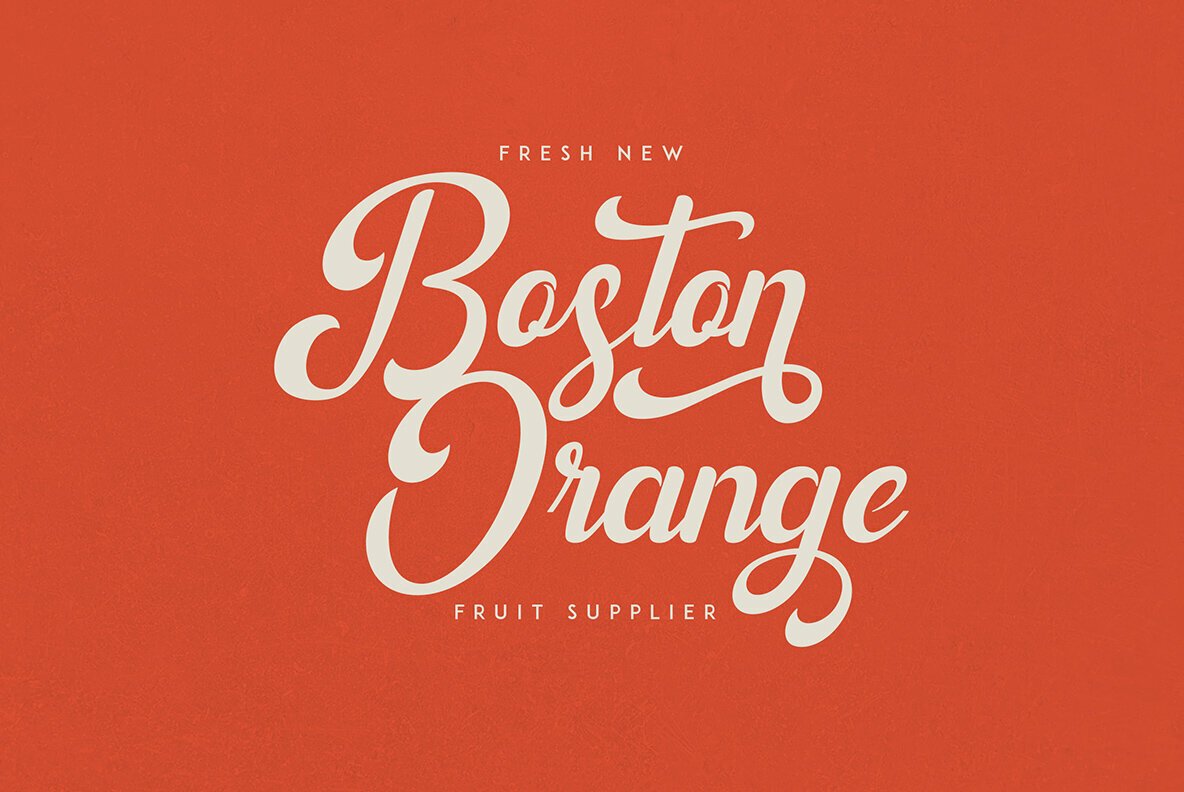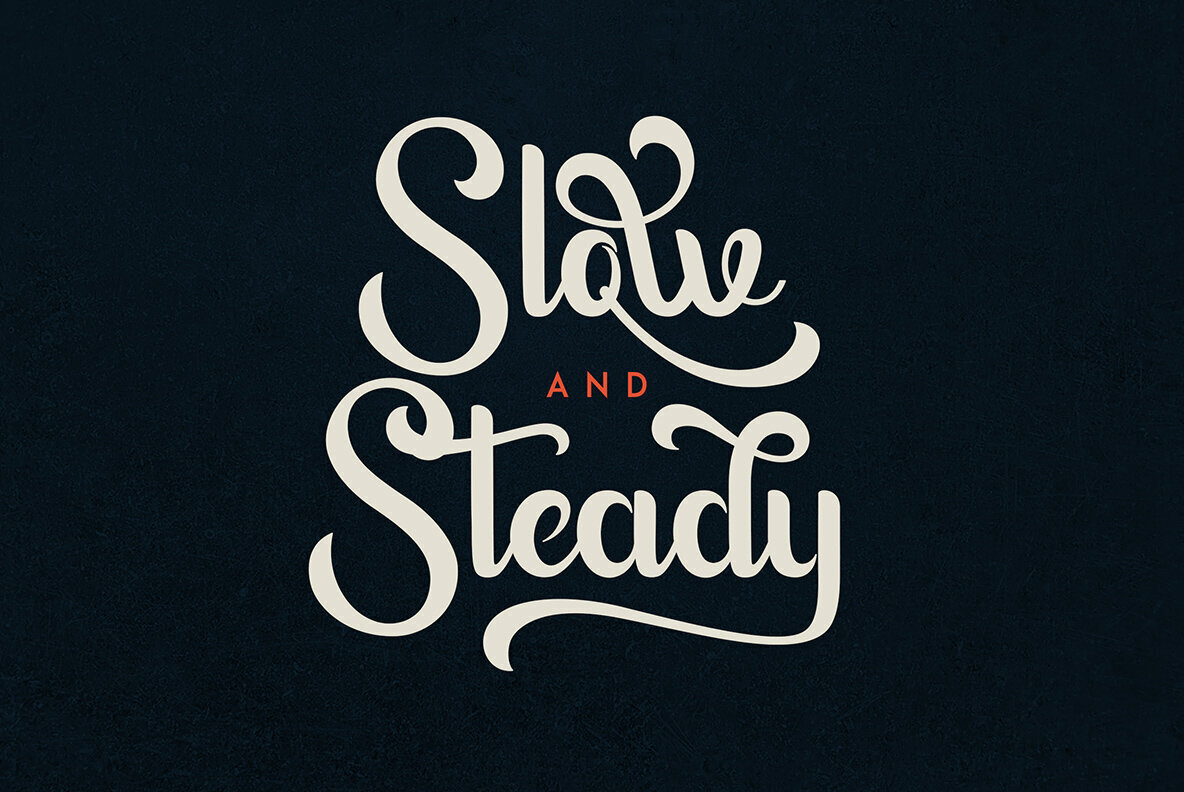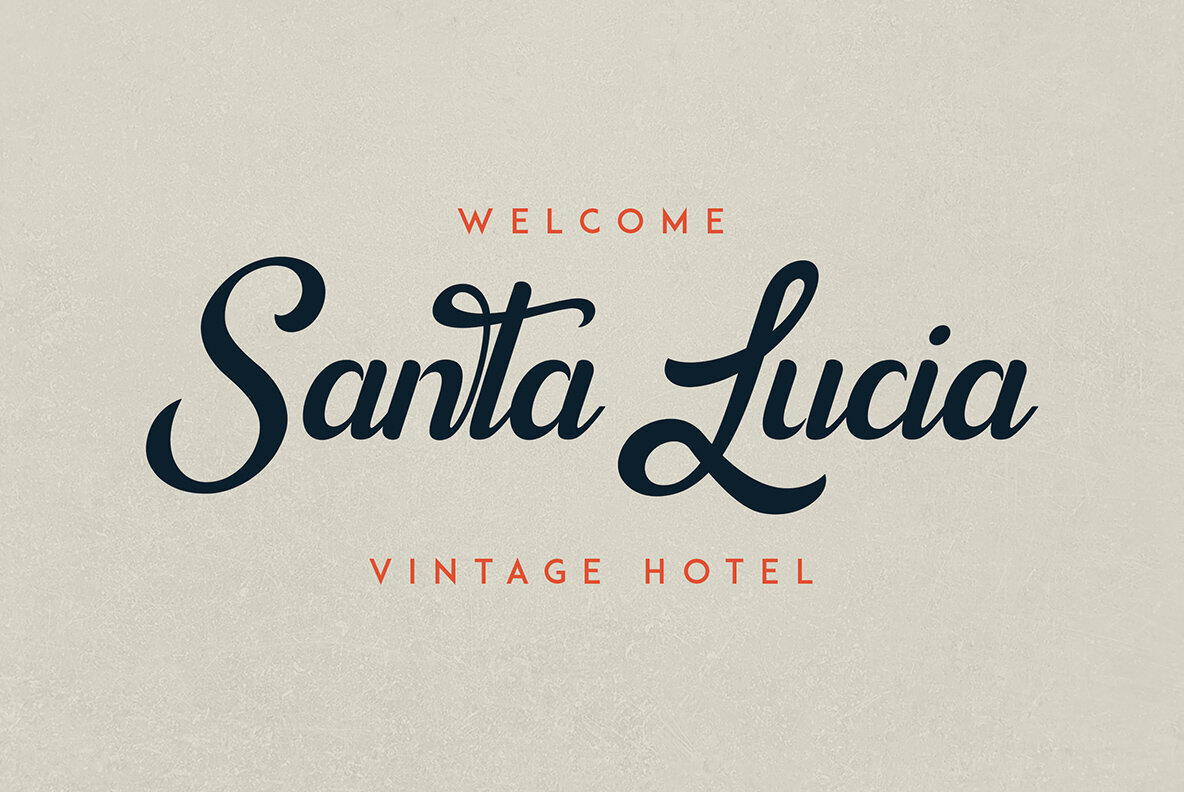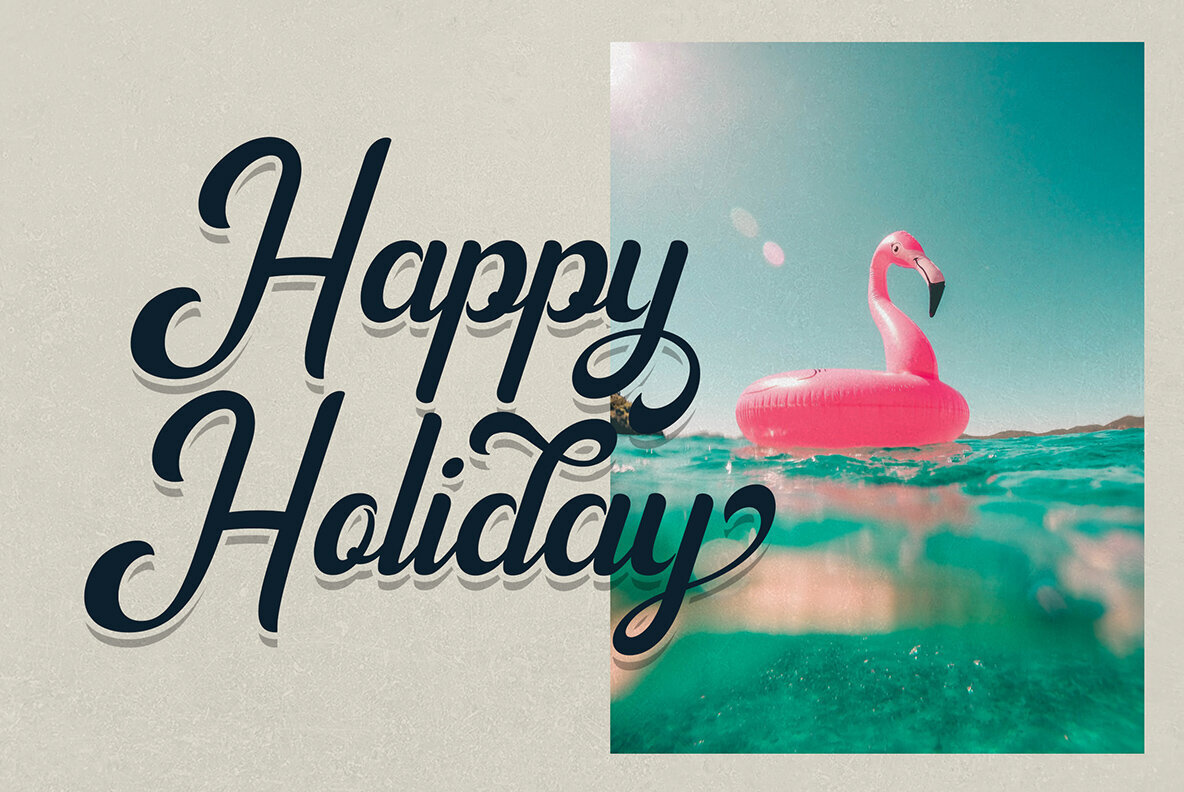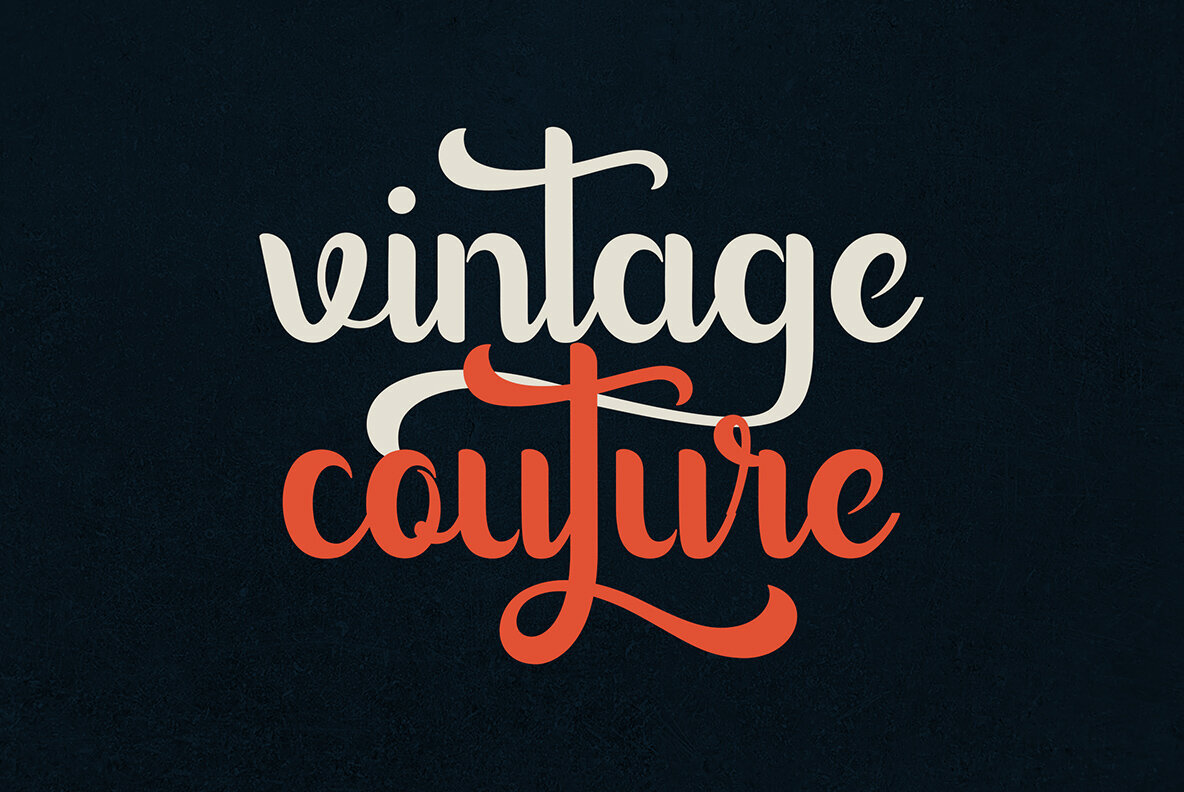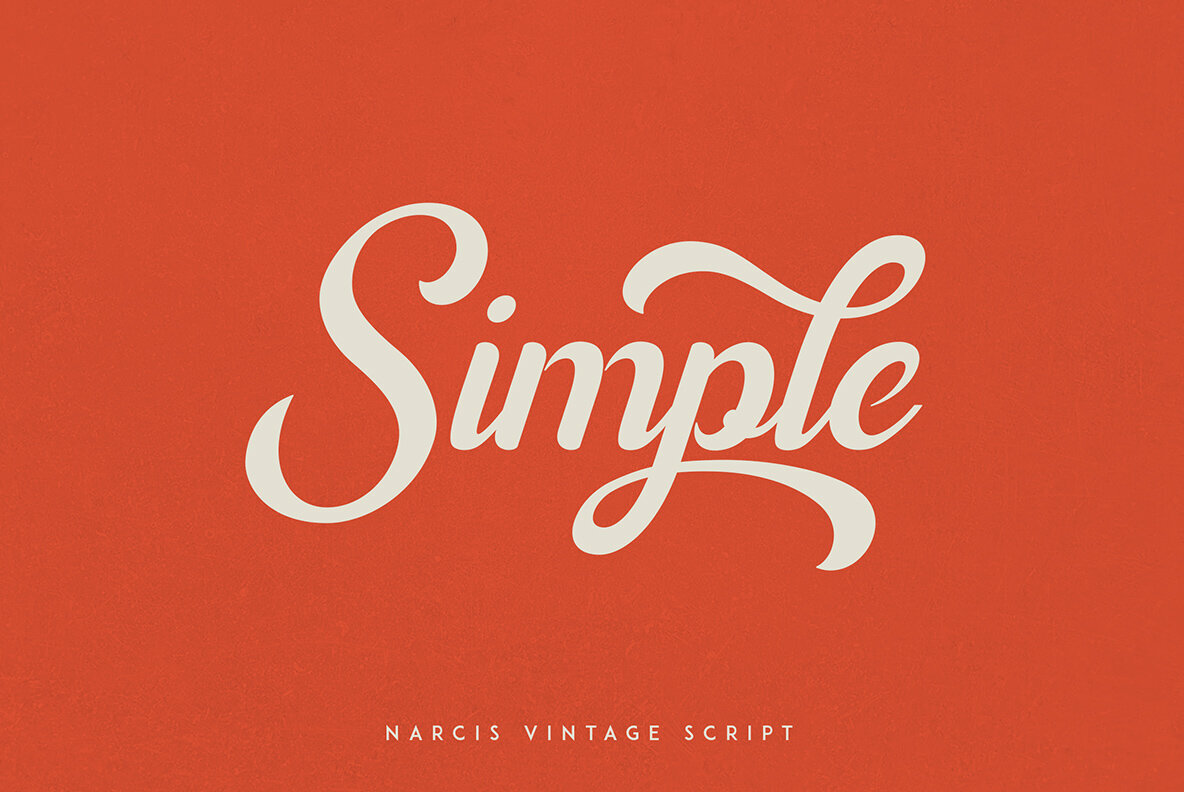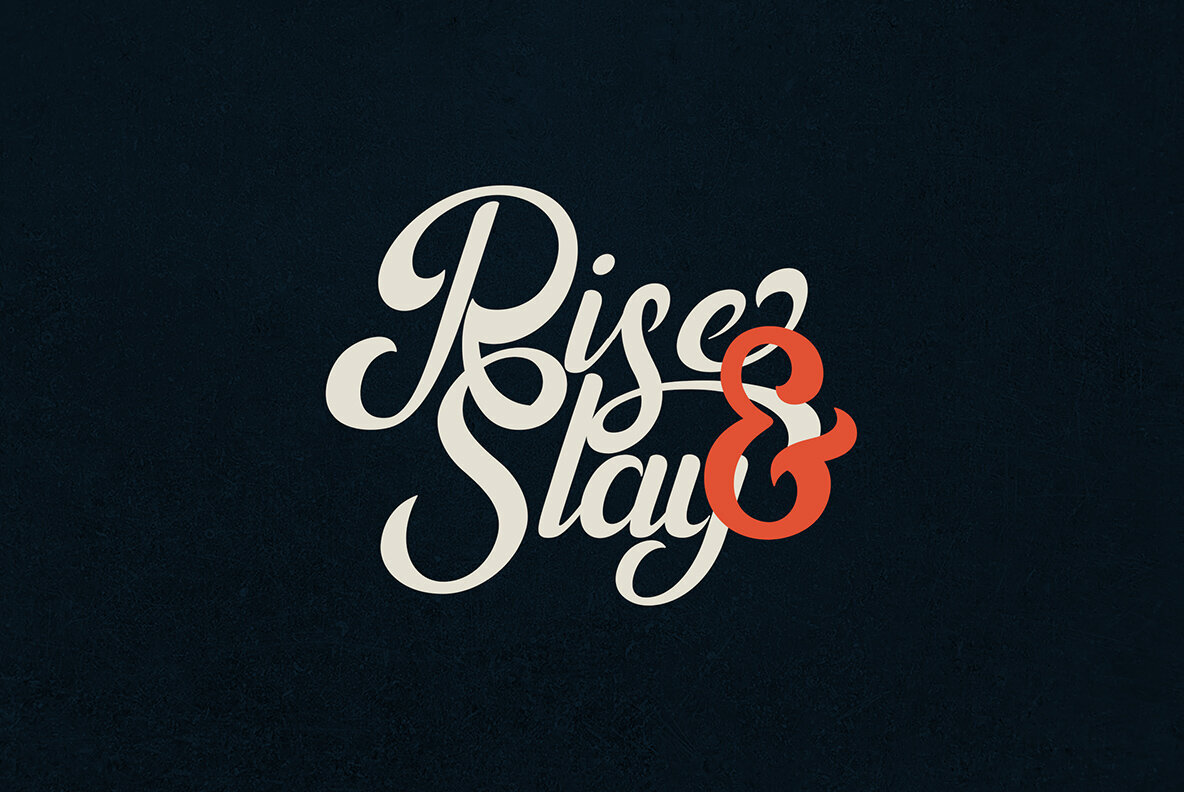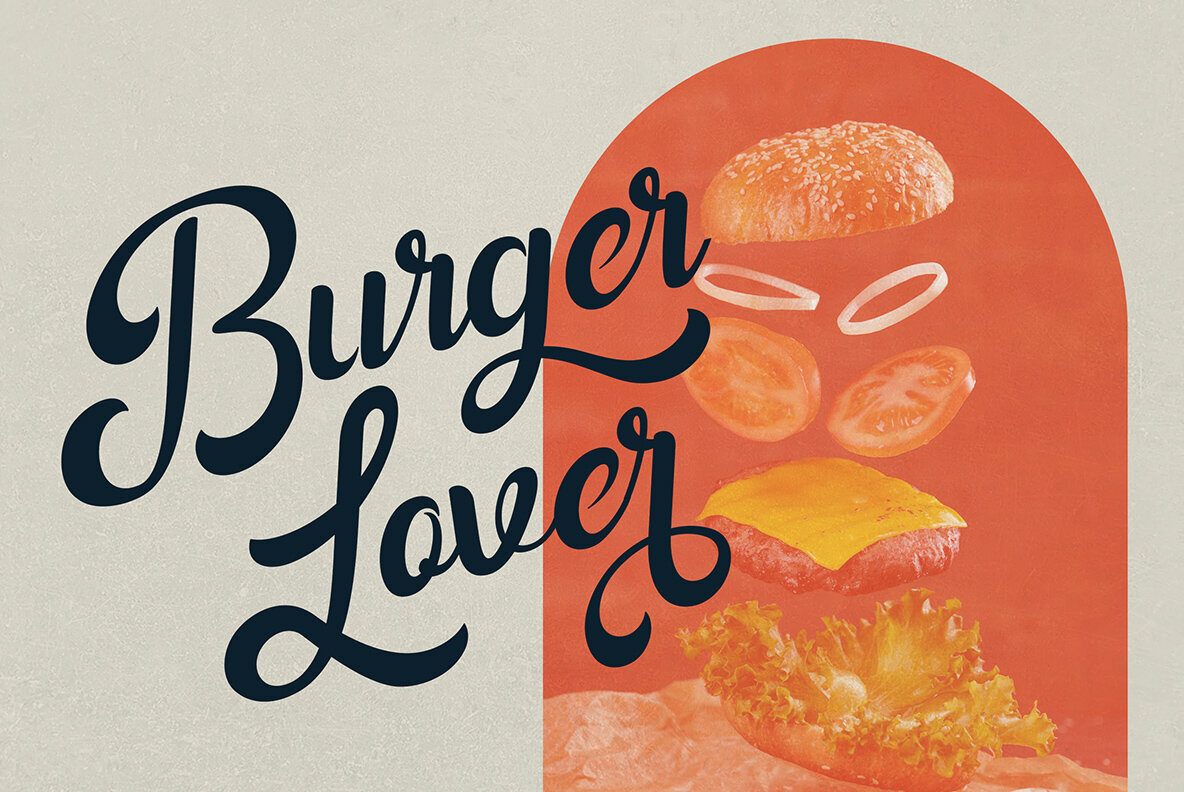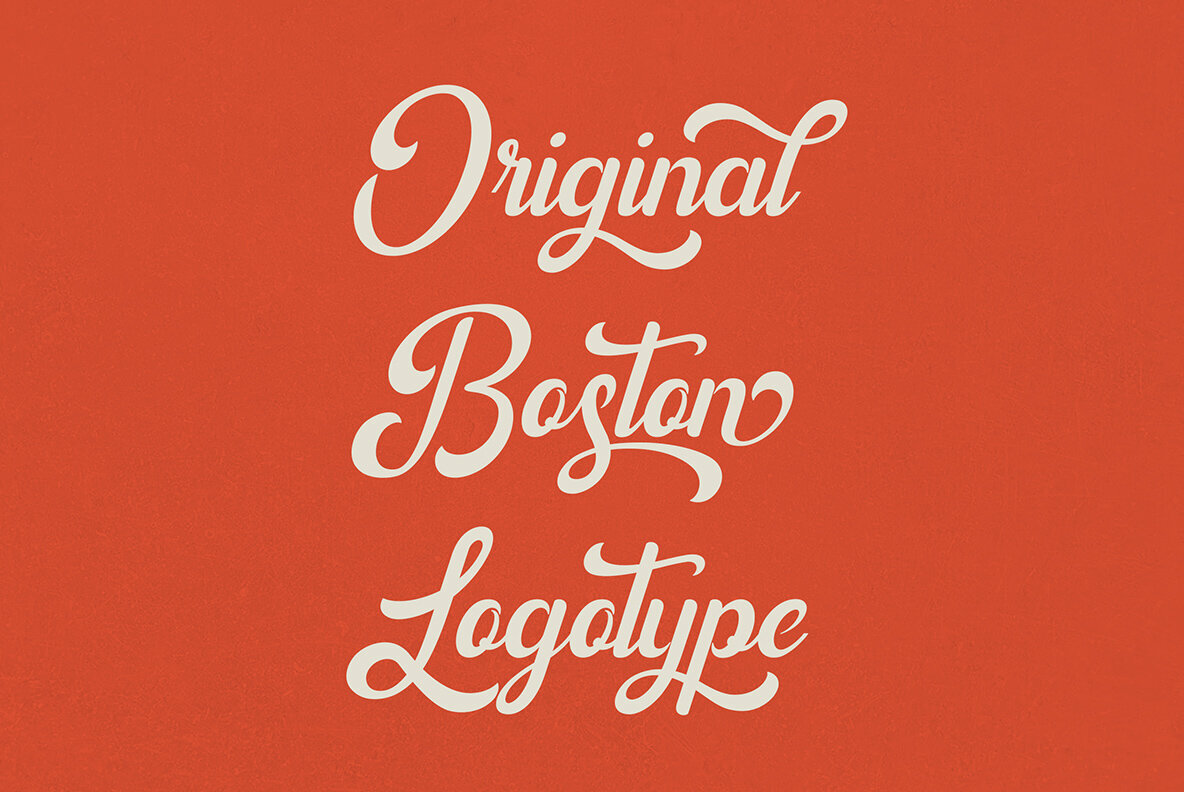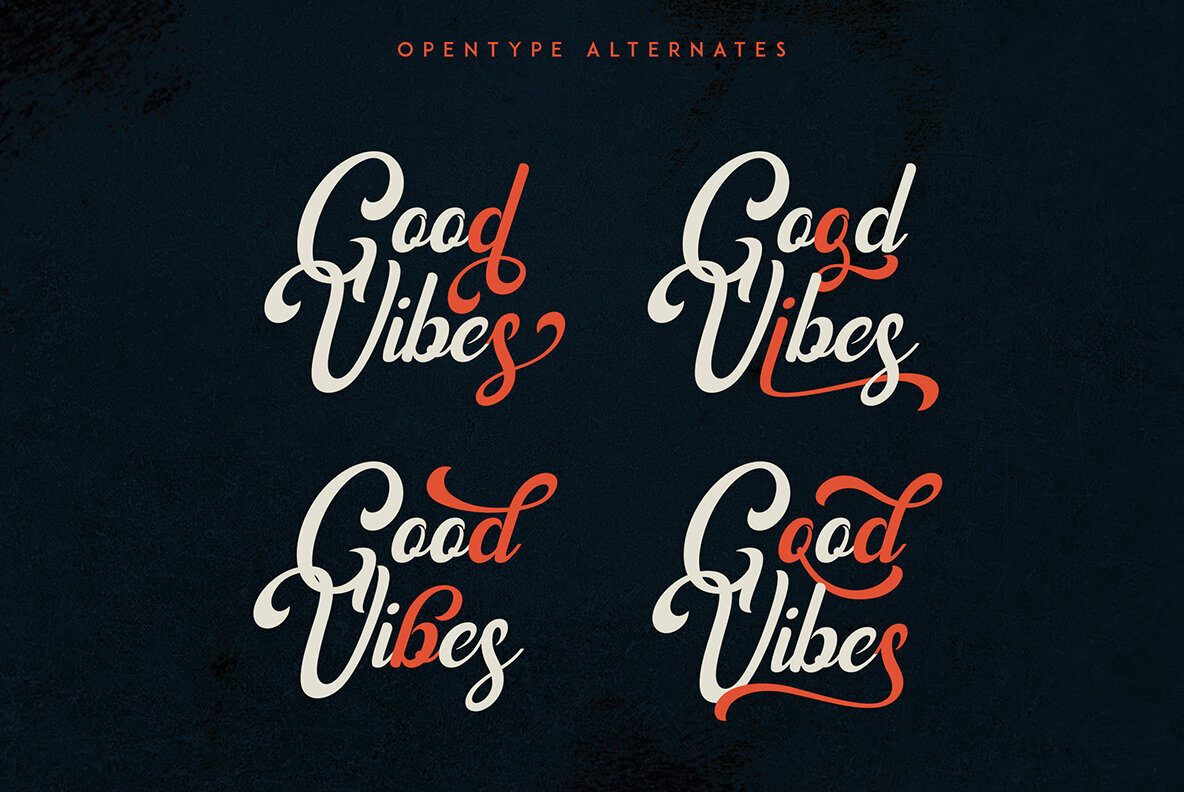
Introducing Narcis, the delightful retro bold script font that's bound to add a touch of nostalgia and flair to any project! This charming typeface boasts a unique blend of boldness and elegance, making it perfect for various design purposes. With its alternate and ligature glyphs, Narcis offers a wonderful range of creative possibilities. These additional characters add extra variety to your text, giving it a truly personalized and artistic feel. Whether you're designing a logo, poster, invitation, or any other project, Narcis' alternates and ligatures will help you achieve a distinct and eye-catching look. But that's not all! Narcis is also impressively versatile when it comes to language support, accommodating up to 87 languages. This means you can confidently express yourself in multiple languages without compromising on the font's aesthetics or legibility. Narcis comes in both regular and italic styles, allowing you to emphasize specific parts of your text or create a dynamic interplay between the two styles. The regular style offers a bold and confident appearance, while the italic style adds a touch of sophistication and movement to your design. Whether you're a seasoned designer or just starting on your creative journey, Narcis is sure to become your go-to font for adding that retro touch with a modern twist. Its warm and friendly demeanor will instantly win you over, making every project a joyful and visually captivating experience. So go ahead and give Narcis a try – you won't be disappointed! Language Support : Afrikaans, Albanian, Asu, Basque, Bemba, Bena, Breton, Chiga, Colognian, Cornish, Czech, Danish, Dutch, Embu, English, Estonian, Faroese, Filipino, Finnish, French, Friulian, Galician, Ganda, German, Gusi,i Hungarian, Indonesian, Irish, Italian, Jola-Fonyi, Kabuverdianu, Kalenjin, Kamba, Kikuyu, Kinyarwanda, Latvian, Lithuanian, Lower Sorbian, Luo, Luxembourgish, Luyia, Machame, Makhuwa-Meetto, Makonde, Malagasy, Maltese, Manx, Meru, Morisyen, North Ndebele, Norwegian, Bokmål, Norwegian, Nynorsk, Nyankole, Oromo, Polish, Portuguese, Quechua, Romanian, Romansh, Rombo, Rundi, Rwa, Samburu, Sango, Sangu, Scottish, Gaelic, Sena, Shambala, Shona, Slovak, Soga, Somali, Spanish, Swahili, Swedish, Swiss, German, Taita, Teso, Turkish, Upper, Sorbian, Uzbek (Latin), Volapük, Vunjo, Walser, Welsh, Western Frisian, Zulu How to access alternate glyphs? To access alternate glyphs in Adobe InDesign or Illustrator, choose Window Type & Tables Glyphs In Photoshop, choose Window Glyphs. In the panel that opens, click the Show menu and choose Alternates for Selection. Double-click an alternate's thumbnail to swap them out. Mock ups and backgrounds used are not included! Thank you! Enjoy!